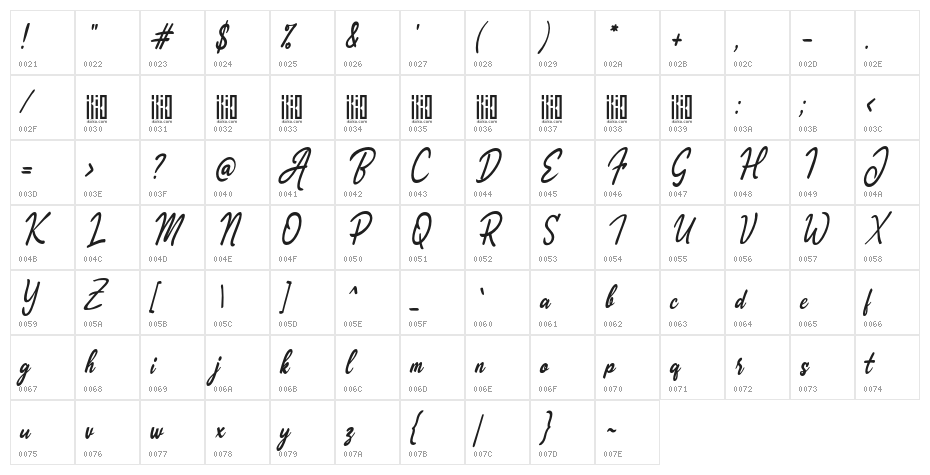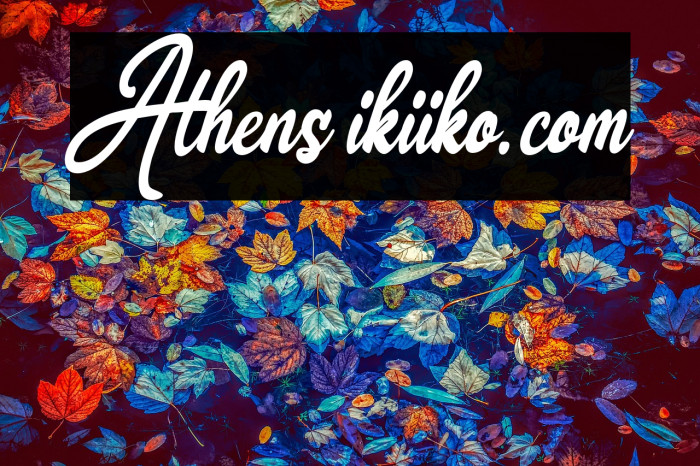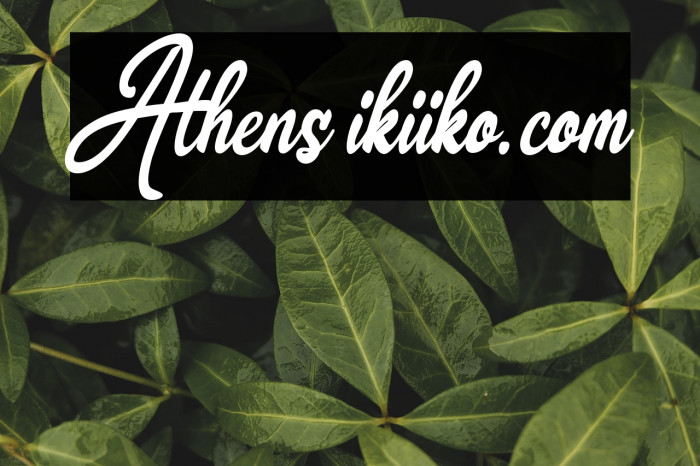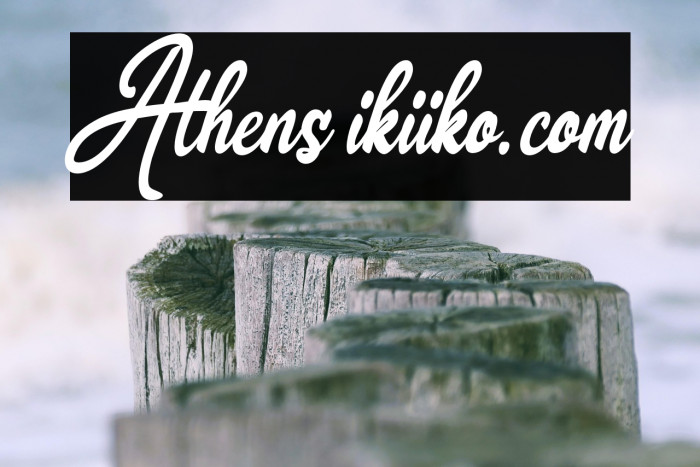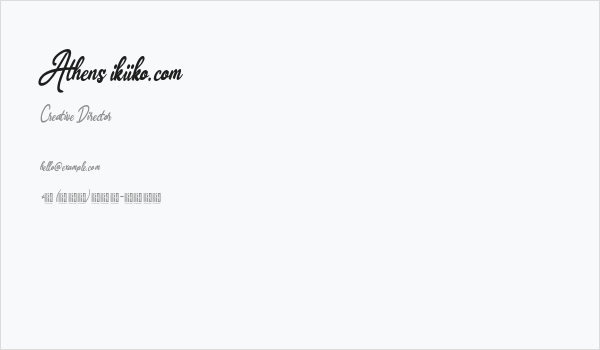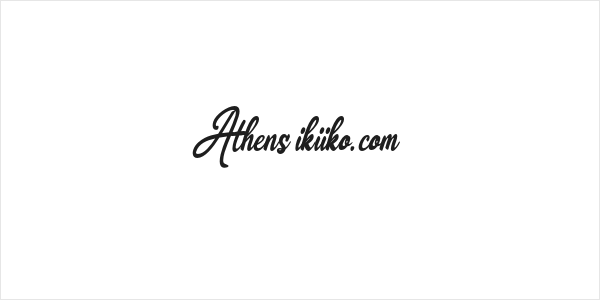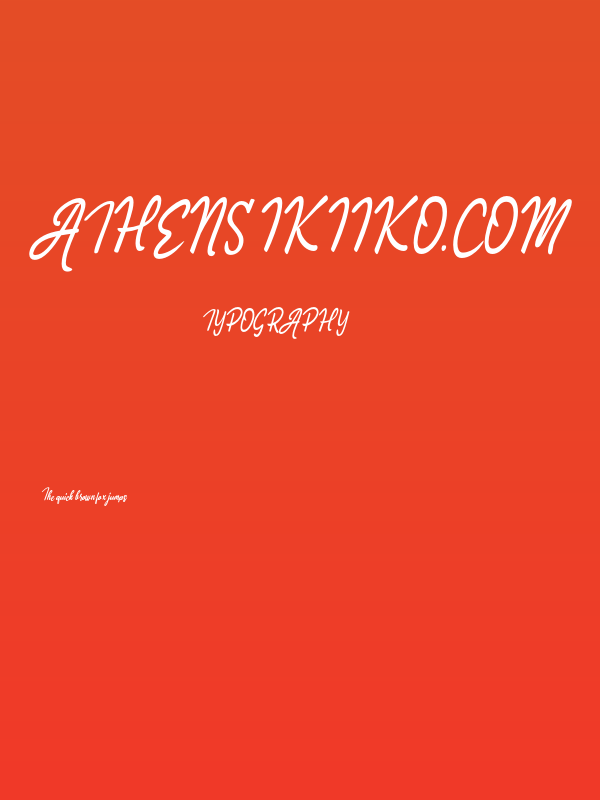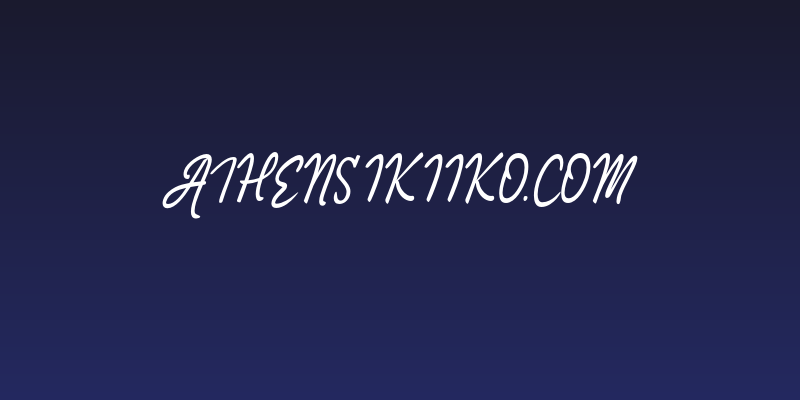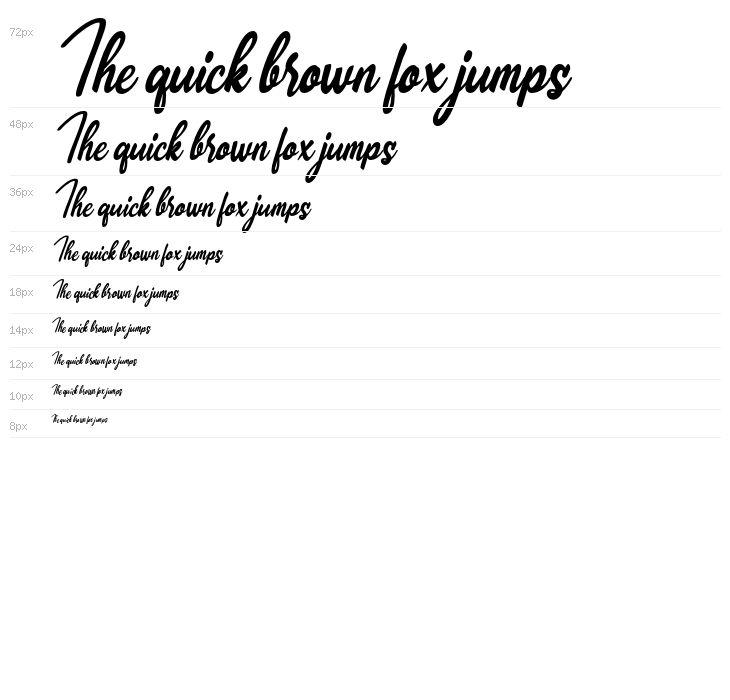
Athens ikiiko.com Font
Athens ikiiko.com Description
A decorative script font with a handwritten style, featuring flowing, connected letters and a modern, elegant appearance.
| Use Case | Logos, Invitations |
| Proposed Projects | Invitations, greeting cards, logos, branding. |